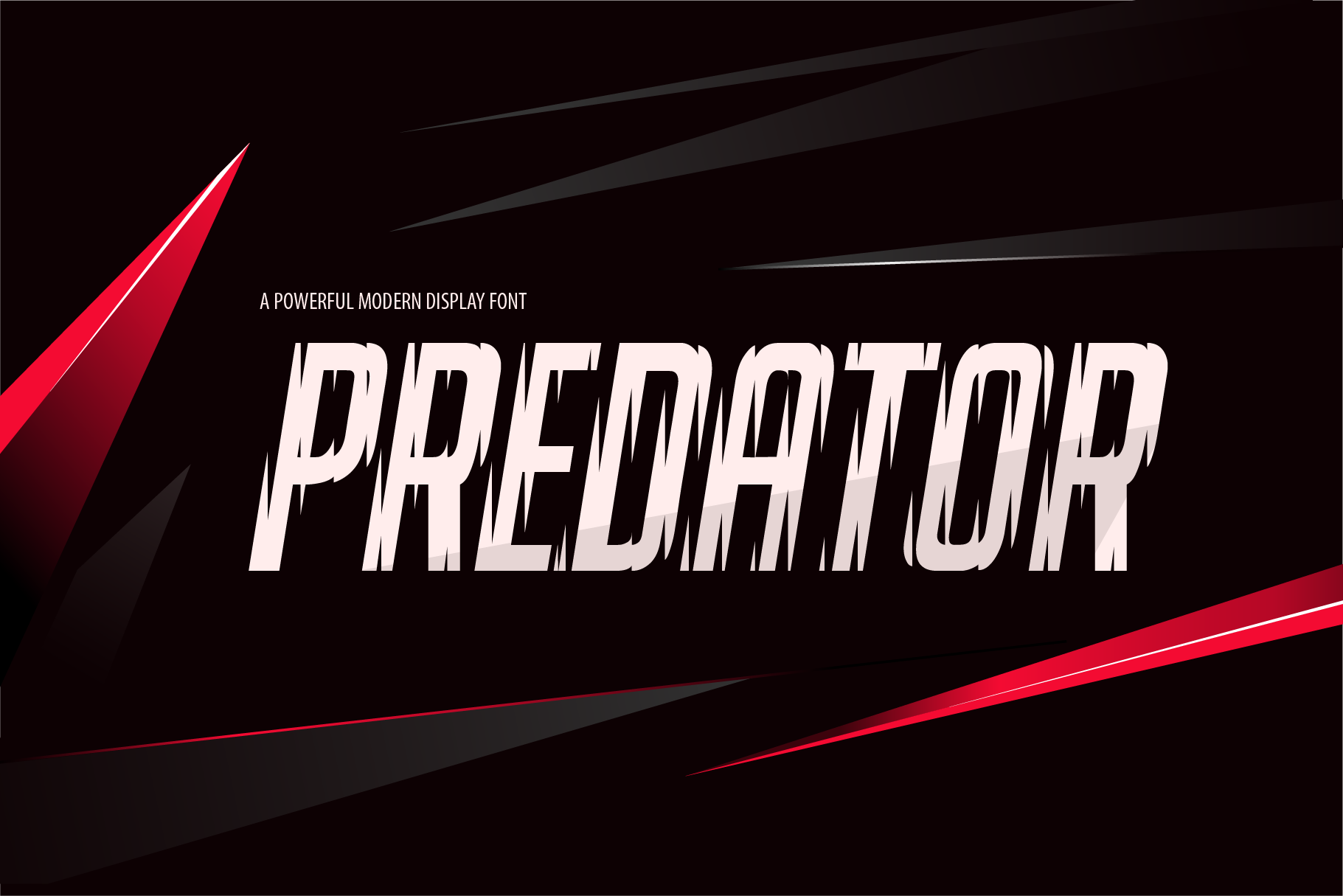
Predator Typeface
A powerful modern display font inspired by the power and speed of the beast of prey. Predator font has a pronounced character, dynamics and energy. It is suitable for logo, quotes, posters, branding, packaging, typography, video, and social media.
Predator works great in areas related to sports, dance, speed, extreme, energy, power, future, technologies.
– Character set A-Z with special UPPERCASE letters
– Numerals, Punctuation & Symbols